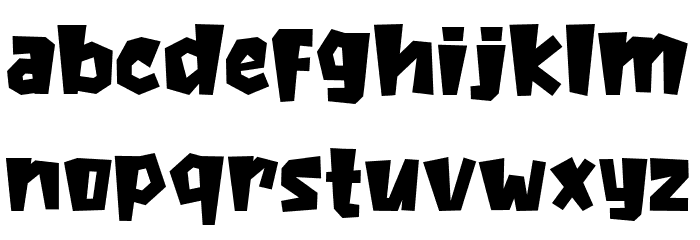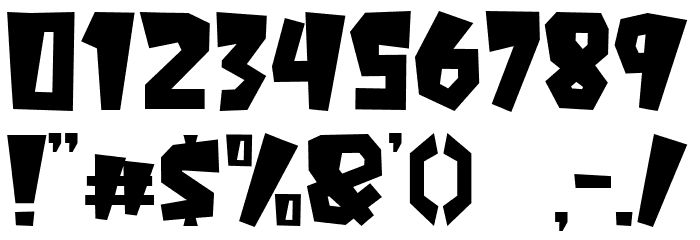
The Baby Monster Font
This font features a bold and playful design with an irregular, jagged appearance that gives it a quirky and energetic feel. The characters are heavily stylized with exaggerated angles and uneven lines, creating a sense of movement and dynamism. The uppercase and lowercase letters maintain a consistent style, while the numbers and special characters follow the same playful theme. This font is ideal for projects that require a fun and eye-catching aesthetic, making it suitable for children's materials, posters, and creative branding.
A bold, playful font with jagged, irregular shapes and a dynamic style.
- Font: The Baby Monster
- Proposed Projects: Ideal for children's books, playful posters, creative branding, and eye-catching headlines.
- Overall Style: Playful, Energetic
- Use Case: Headlines, Posters, Branding